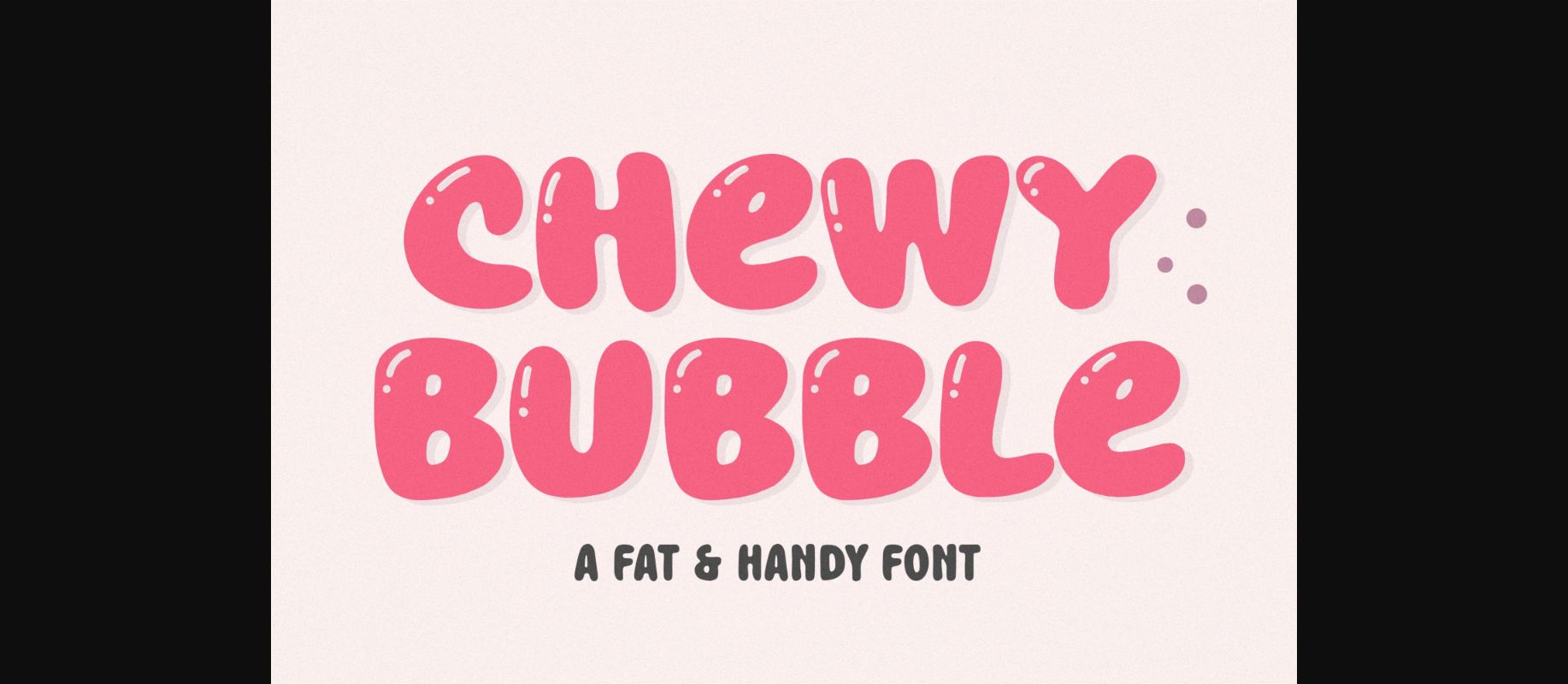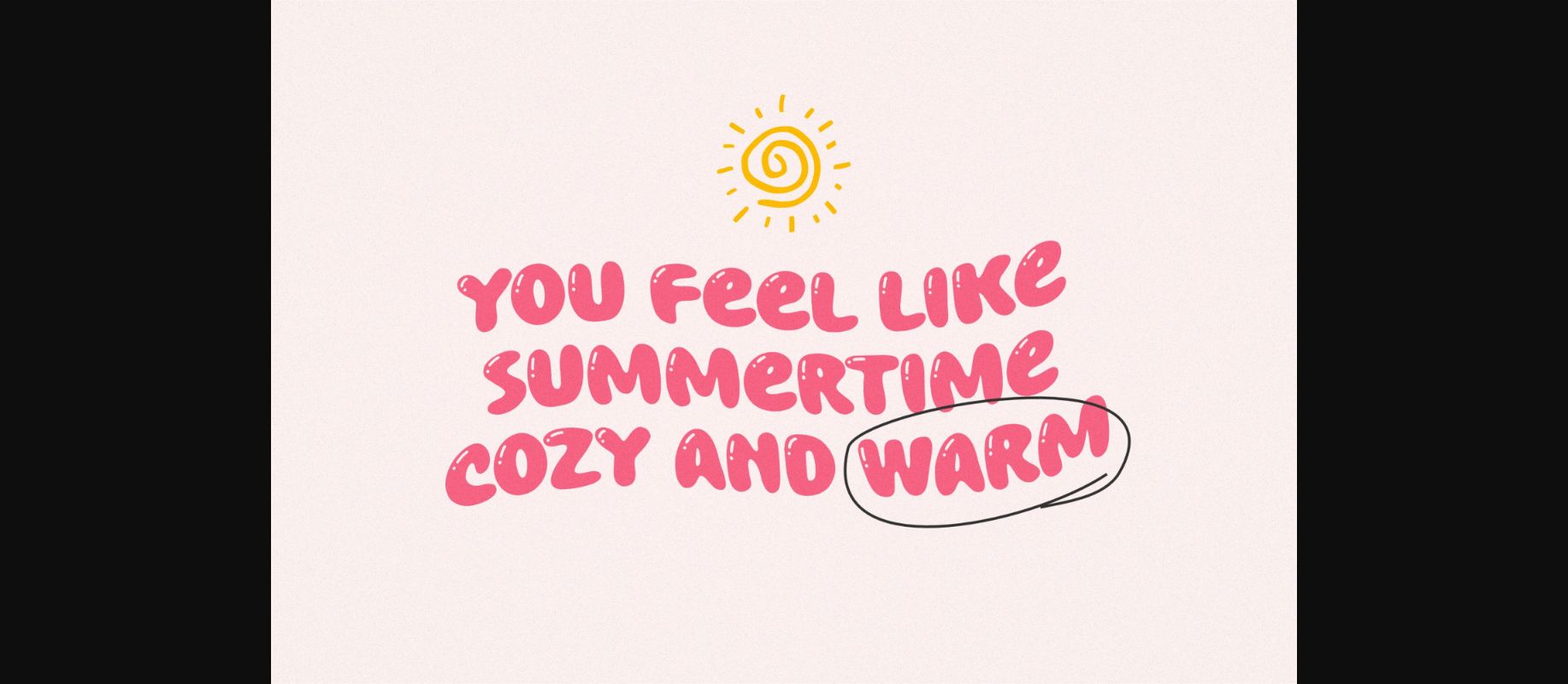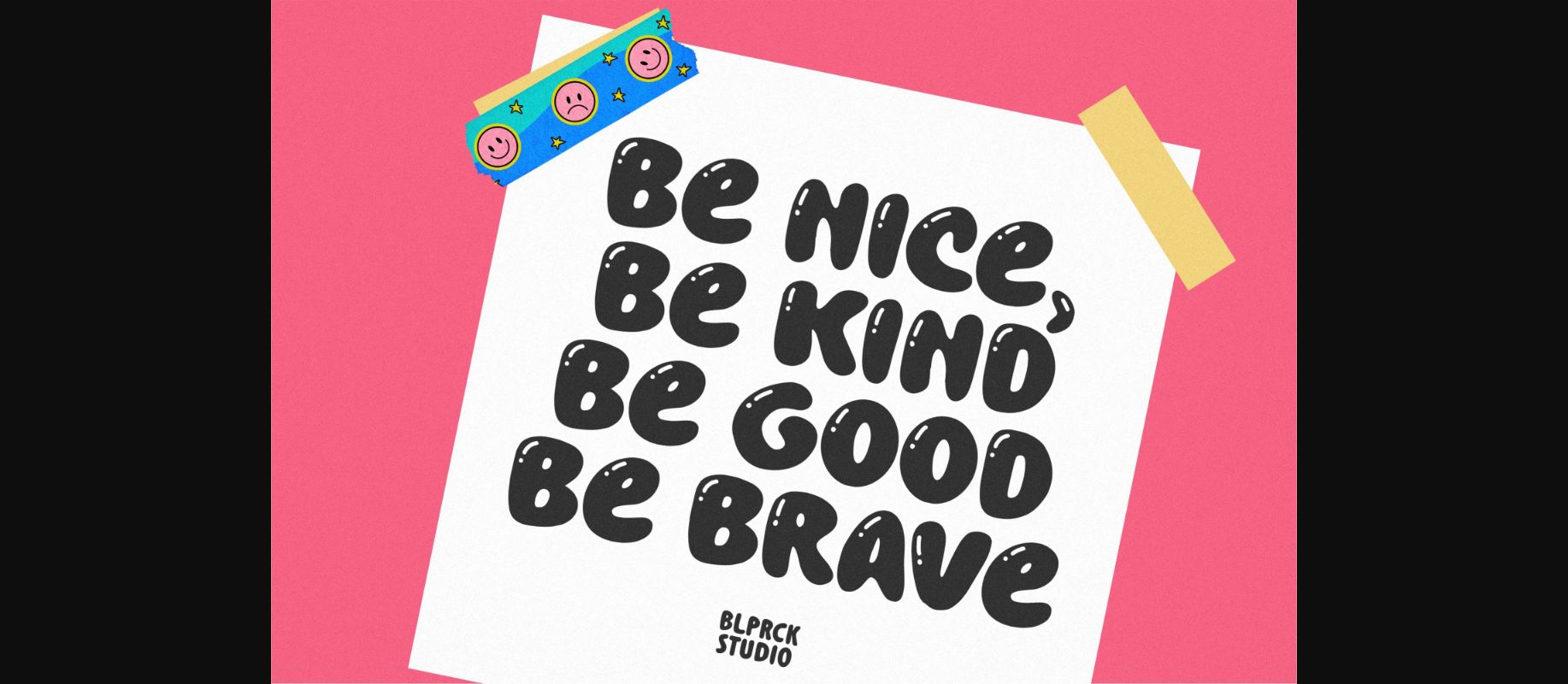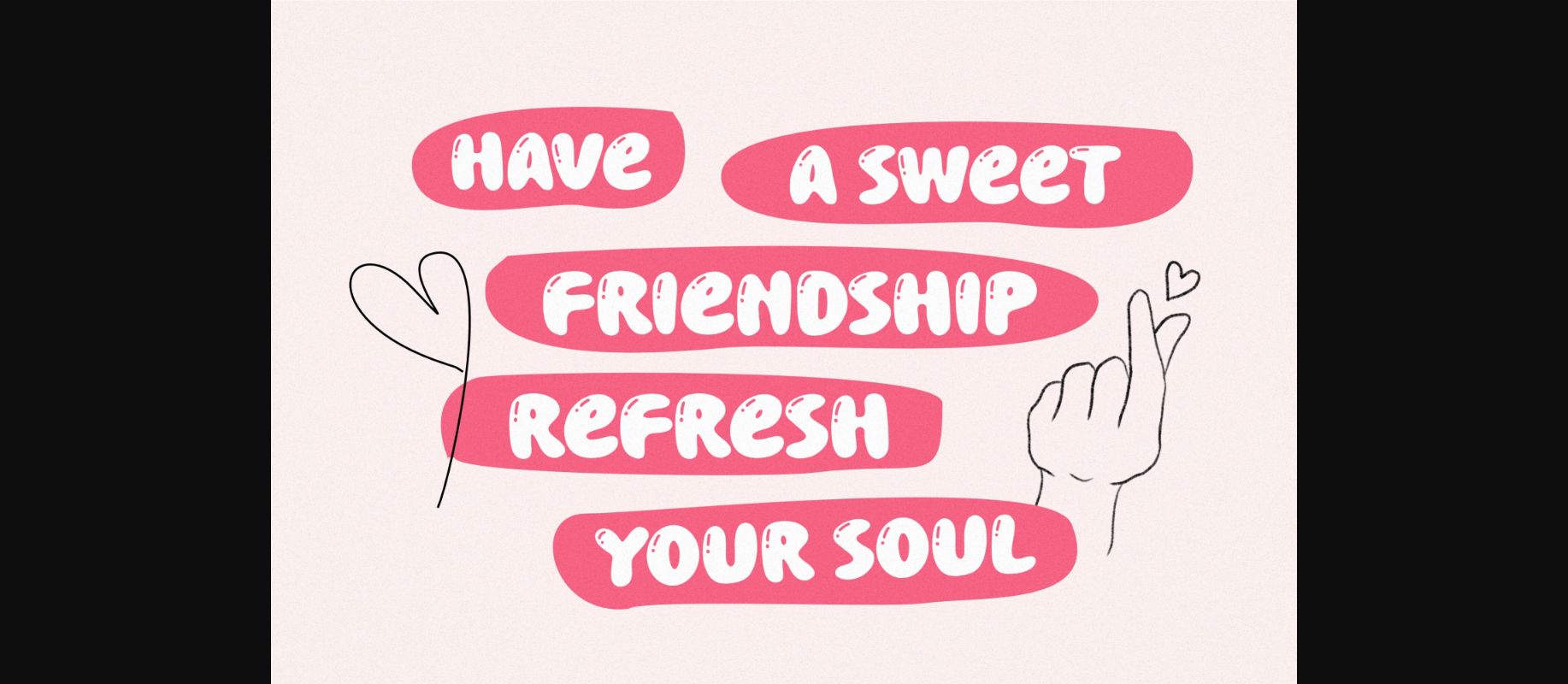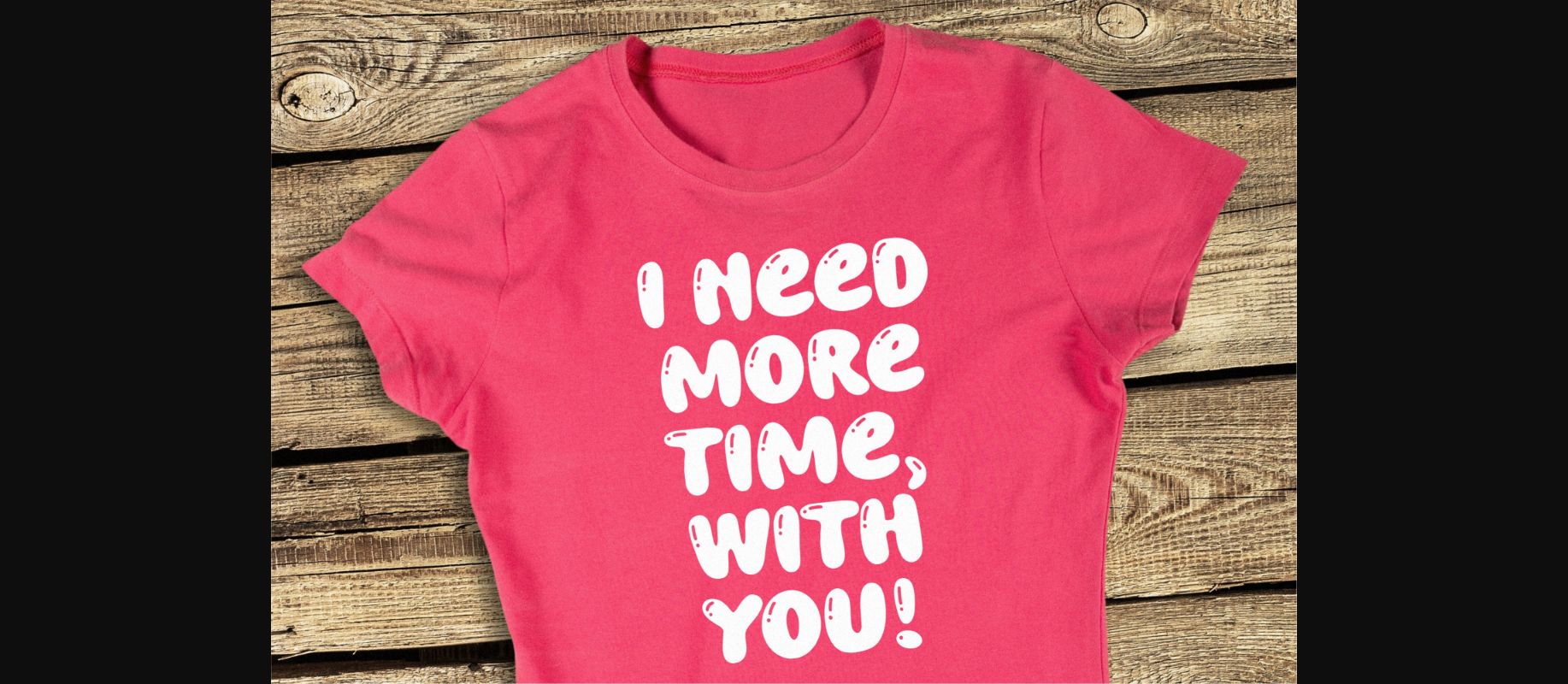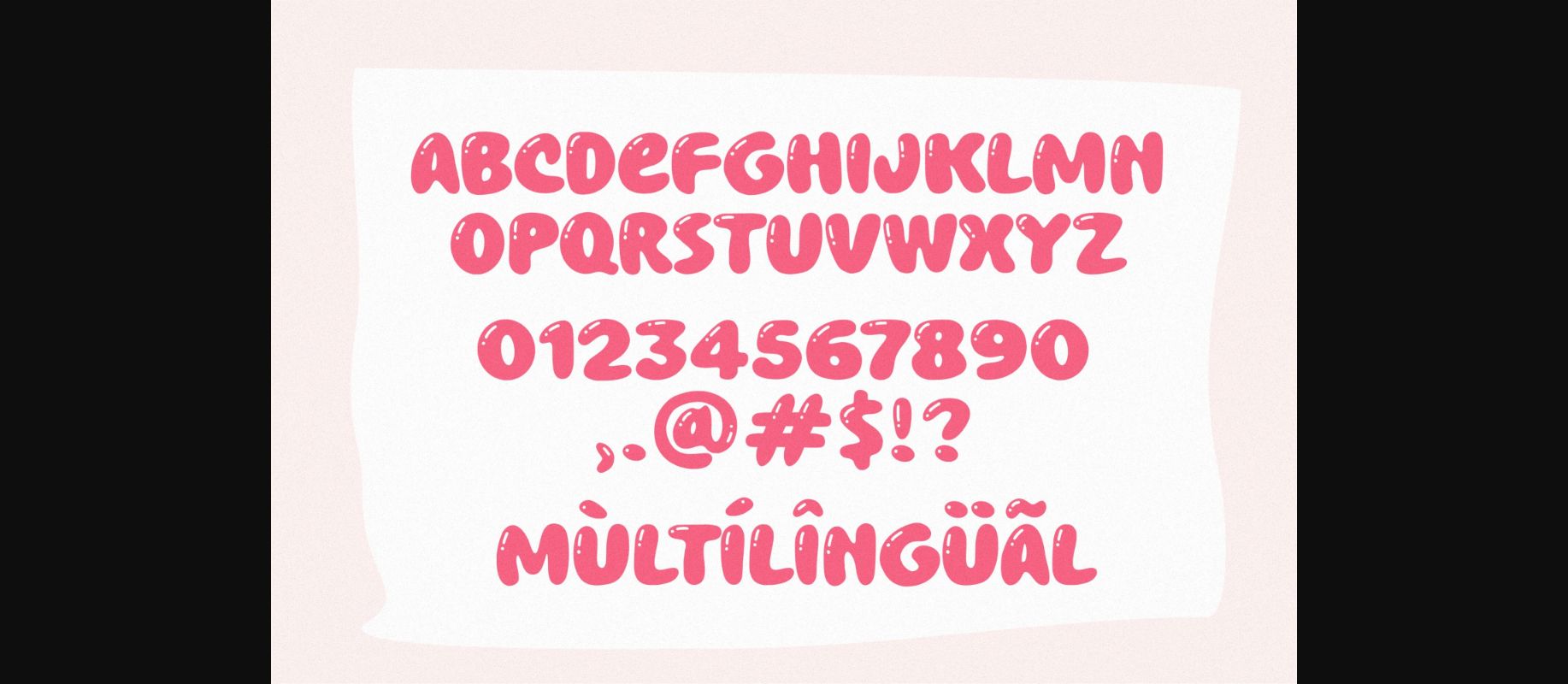
Chewy Bubble Font
About Chewy Bubble Font
Chewy Bubble is a fat and handy font, a fun typeface that adds a cheerful and vibrant touch to your designs.
This font features bold and rounded letterforms, reminiscent of fat bubbles floating in the air. Carefully crafted curves and generous spacing create a sense of fun and whimsy, giving your text a lively and interesting look.
Whether you’re designing a logo, poster, or children’s book cover, this fat and cheerful font is sure to grab attention and add some fun to your designs